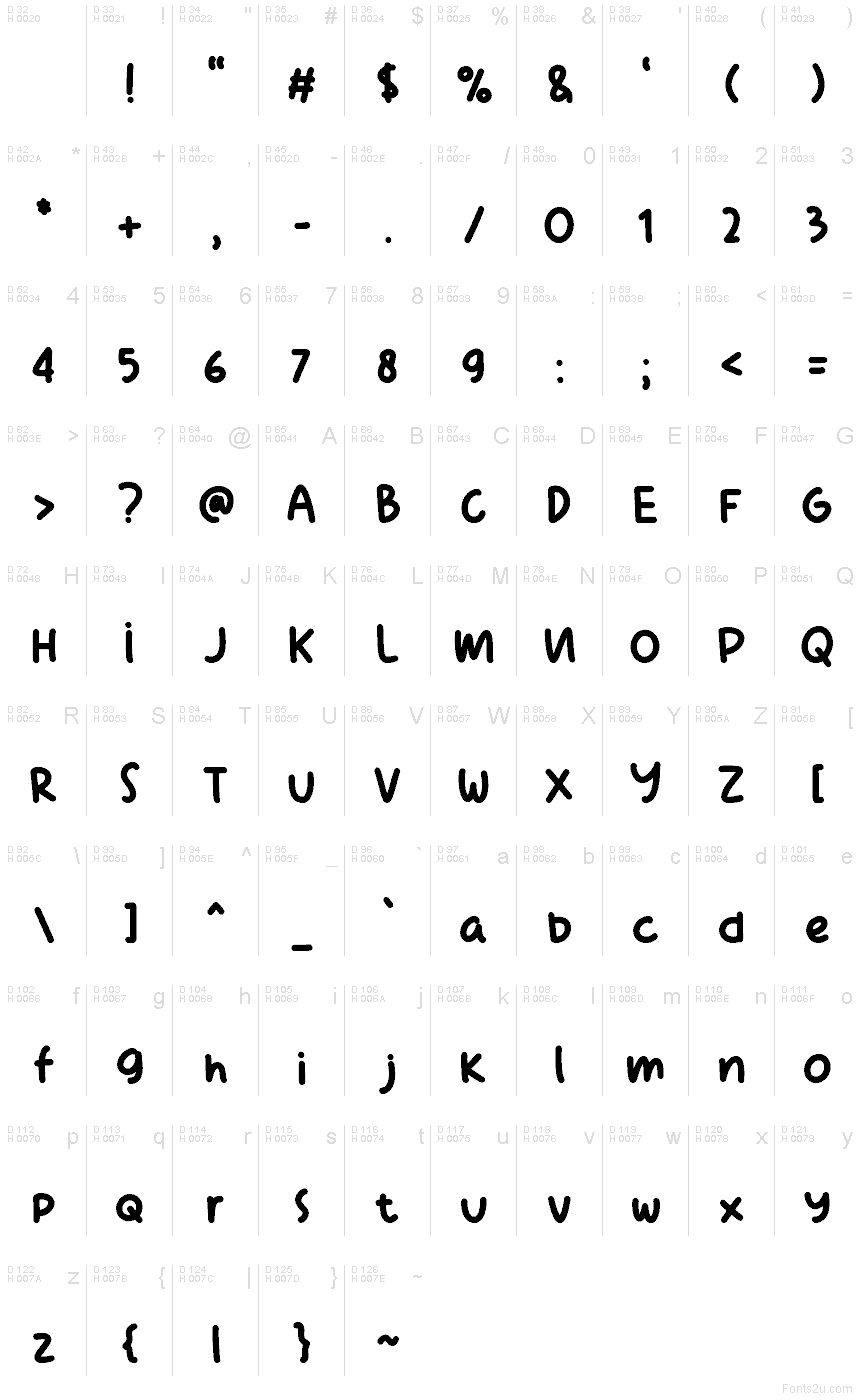
Mominacute Regular
Mominacute font from Ibra Creative Studio is a modern, casual, and friendly handwritten typeface. The contemporary rounded characters add an approachable overall tone used to keep the text more readable. The variety of available glyphs widens your option for which letter combinations to use in your final design.